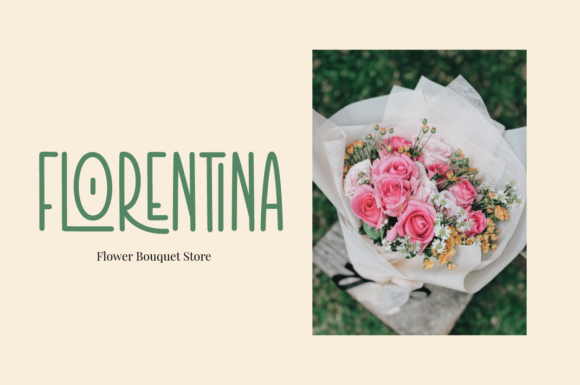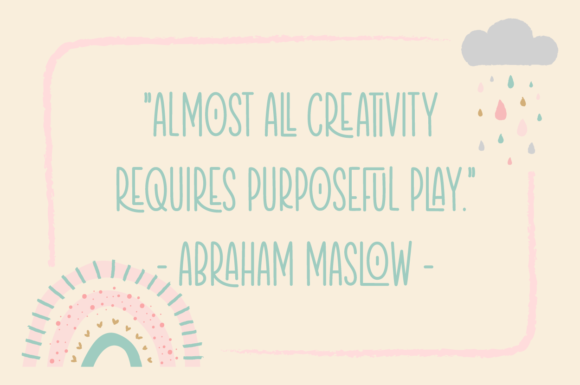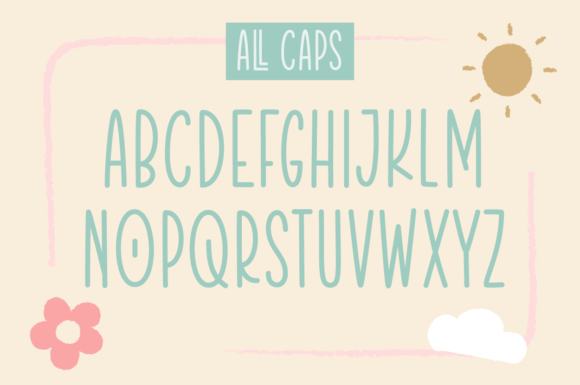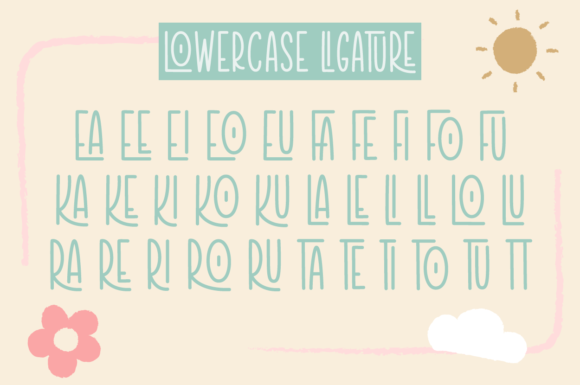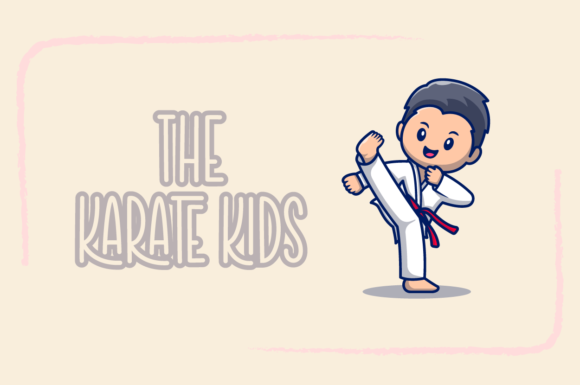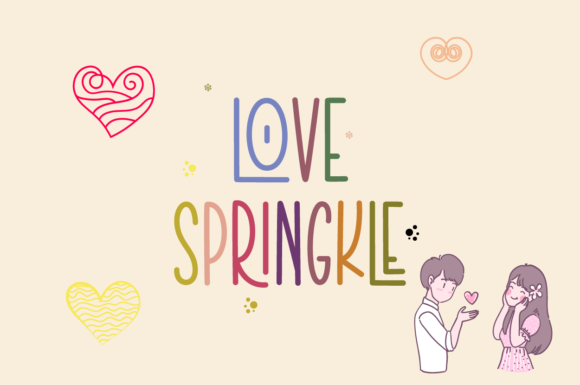
Introducing Hello Februari Font: A Playful and Versatile Display Font
Are you tired of using the same old fonts for your designs? Look no further than Hello Februari Font, a playful, slim, and interesting display font that’s sure to add a touch of personality to your projects. With its friendly feel and versatile design, this font is perfect for a wide range of contexts, from crafting and design to digital media and advertising.
What Makes Hello Februari Font So Special?
Hello Februari Font is a unique and eye-catching display font that’s designed to make your designs stand out. Its slim and playful design makes it perfect for use in a variety of contexts, from headings and titles to logos and branding. The font’s friendly feel also makes it incredibly versatile, allowing you to use it in everything from children’s designs to more professional applications.
Hello Februari Font is a dream come true for designers and crafters. Whether you’re creating digital media, crafting handmade cards and gifts, or designing logos and branding for clients, this font is sure to inspire. Its playful and friendly design makes it perfect for use in a wide range of creative projects, and its PUA encoding makes it easy to customize and adapt to your needs.
Use Hello Februari Font in a Variety of Contexts
Hello Februari Font is incredibly versatile, making it perfect for use in a wide range of contexts. Here are just a few ideas to get you started:
- Digital media: Use Hello Februari Font to add a touch of personality to your social media graphics, blog posts, and website designs.
- Crafting: Add a playful touch to your handmade cards, gifts, and other crafts with Hello Februari Font.
- Logos and branding: Use Hello Februari Font to create unique and eye-catching logos and branding for your clients or your own business.
- Advertising: Add a touch of whimsy to your advertising designs with Hello Februari Font.
Tips for Using Hello Februari Font
Here are a few tips for getting the most out of Hello Februari Font:
- Experiment with different sizes and colors to find the perfect look for your design.
- Pair Hello Februari Font with other fonts to create a unique and eye-catching design.
- Don’t be afraid to get creative and try new things – Hello Februari Font is designed to inspire!